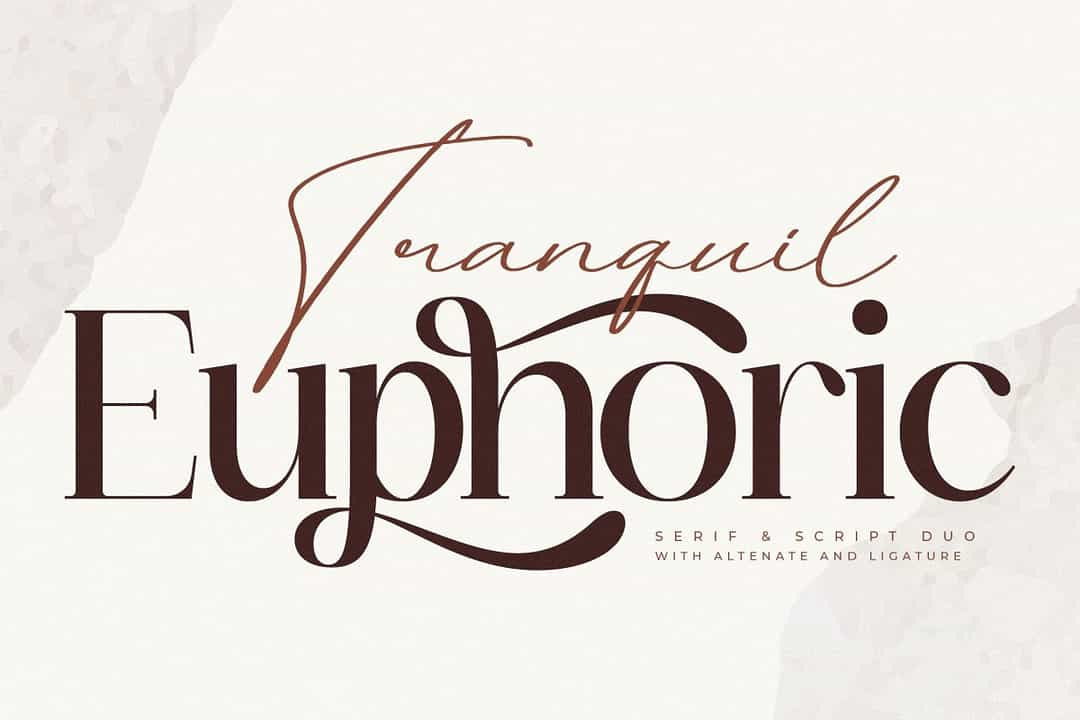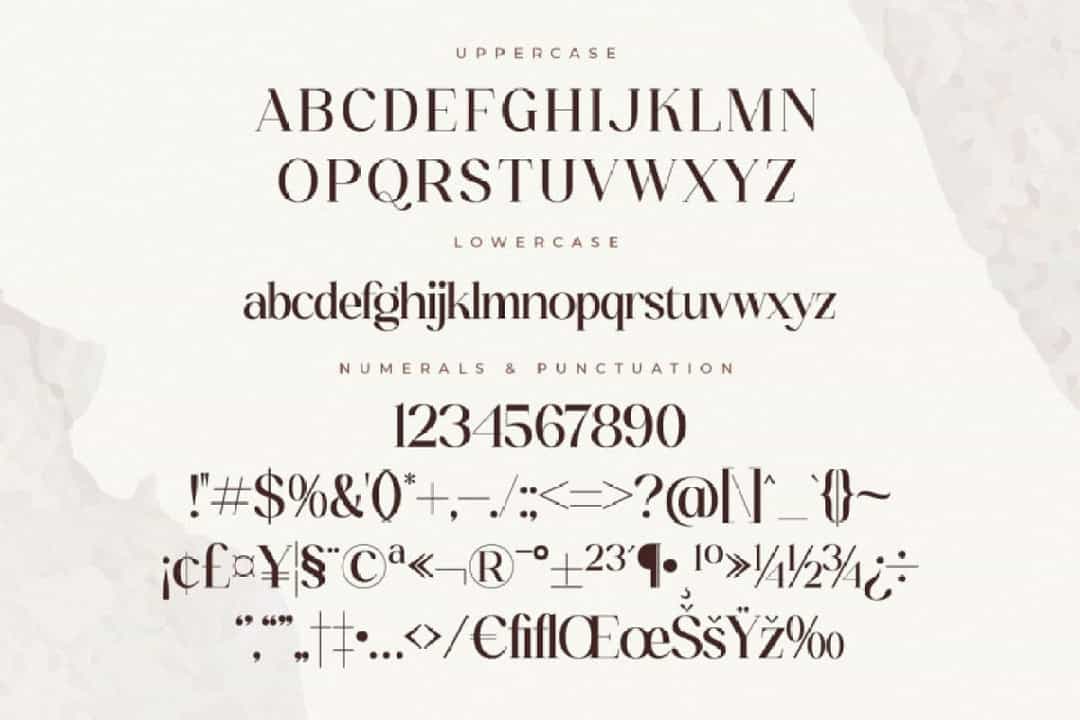
Tranquil Euphoric font Duo is a script and serif font with distinctive style, creating an elegant appearance. Perfect for logo design, book or film title design, fashion brand clothing magazine designs, lettering quotes and much more, PUA encoded font allows access to its incredible symbols and ligatures quickly!